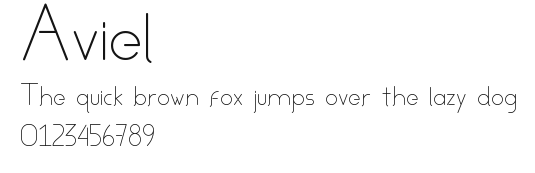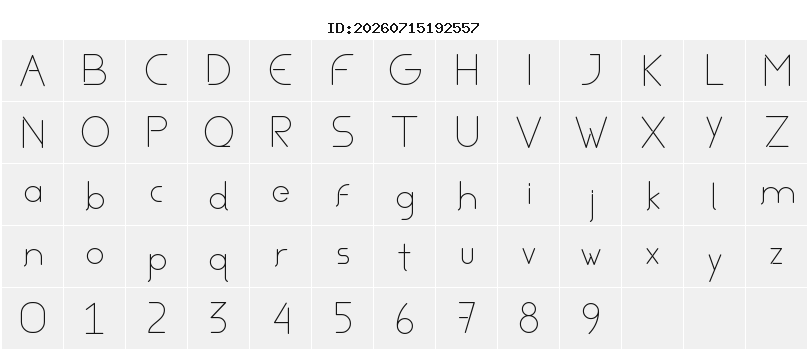
Aviel Preview
• Font Name: Aviel
• Full Font Name: Aviel Regular
• Designer: Asley Cruz
About Aviel.ttf
Aviel.ttf is a modern, elegant sans-serif font designed for ultimate readability and visual harmony. Perfect for branding, headlines, web design, and print materials.